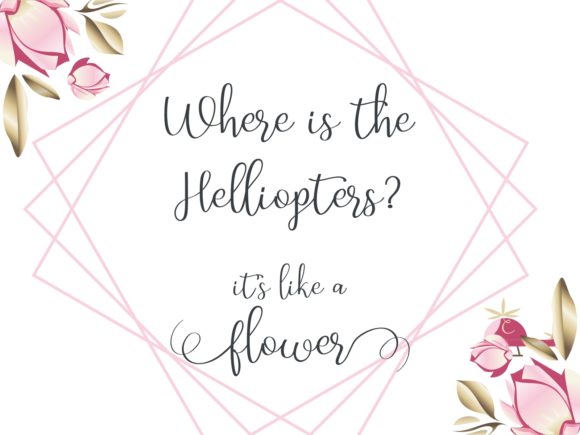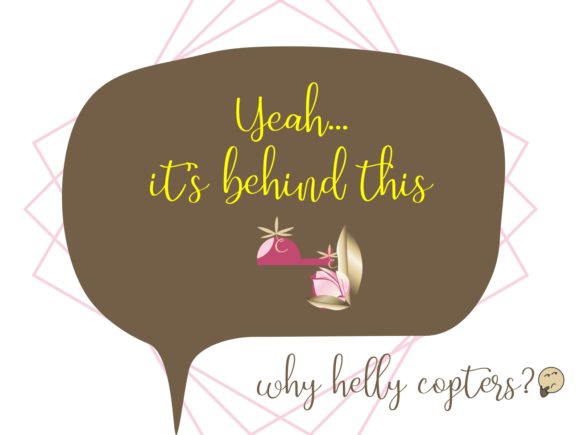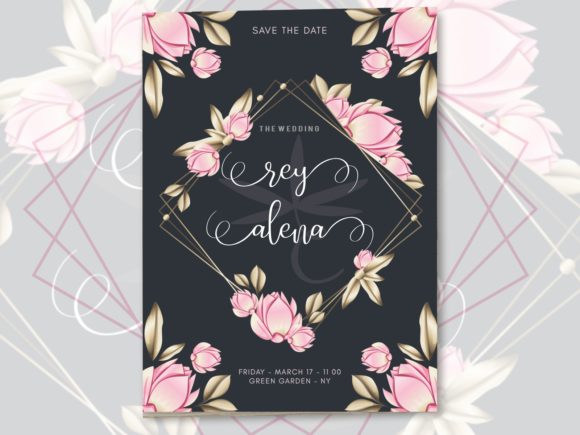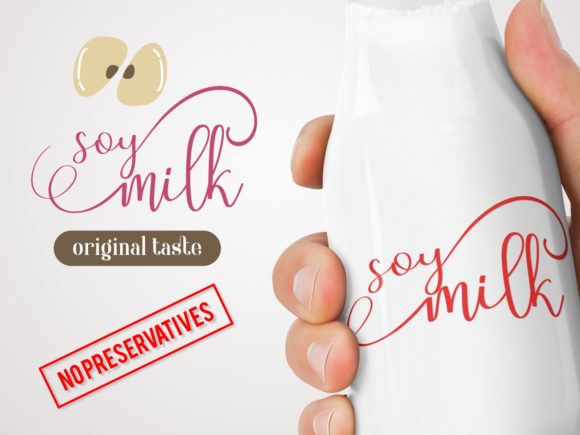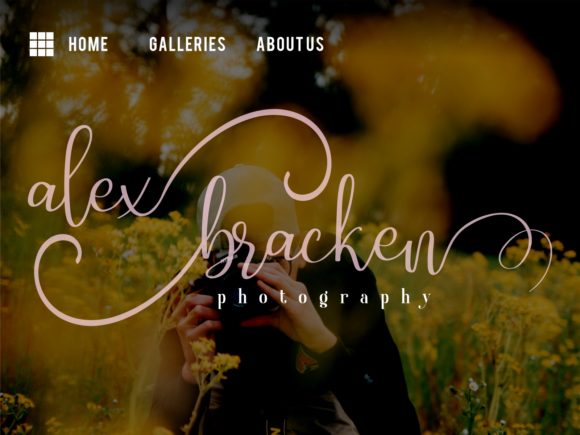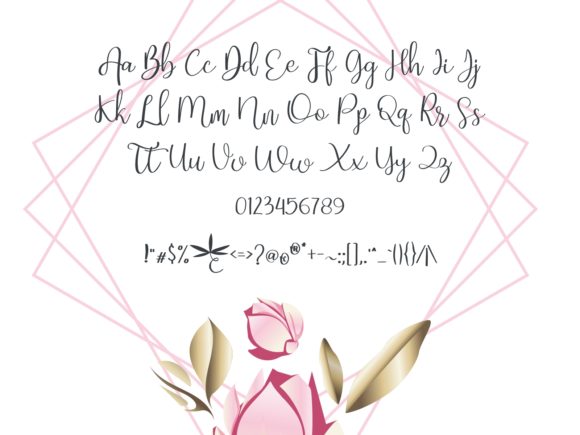
Introduction to Helly Copters Font
Have you ever been in the middle of a creative project, pouring your heart and soul into a design, and suddenly, the perfect font pops into your mind? That’s exactly what happened to me when I stumbled upon the Helly Copters Font. Its elegant, flowing handwriting style instantly caught my attention, and I knew I had to learn more about this beautiful design resource.
As a designer, I can attest to the importance of having access to high-quality fonts that elevate our work to the next level. The Helly Copters Font is a game-changer, offering a unique blend of classy calligraphic influences and contemporary freshness. With its PUA encoding, you can easily access all of the glyphs and swashes, making it a versatile and powerful tool for any creative project.
Key Features of Helly Copters Font
- High-quality vector design, ideal for creative projects requiring a unique touch.
- Designed to be highly scalable, suitable for use in a wide range of resolutions and sizes, from small icons to large signage.
- Features a distinctive, bold style that is sure to add a touch of personality to any design project.
- Perfect for use in graphic design, digital art, and other creative applications where a unique font is desired.
Honest Review: Helly Copters Font
I recently stumbled upon the Helly Copters Font while working on a creative project that required a unique and eye-catching design resource. Initially, I was drawn to its quirky and playful aesthetic, which I thought would be perfect for a fun and lighthearted project.
- ✨ Unique and creative design style that adds a touch of personality to any project
- ✨ High-quality font that is crisp and clear, making it ideal for various design applications
- ⚠️ Limited character set, which may not be suitable for projects that require a wide range of characters or languages
- ⚠️ Some users may find the font’s quirks and imperfections to be distracting or overwhelming, depending on the project’s tone and style
Overall, I would recommend the Helly Copters Font for designers looking for a unique and creative solution for their projects. While it may not be suitable for every design application, it is a great option for those looking to add some personality and flair to their work.
The Helly Copters Font is ideal for use in graphic design, logo creation, and branding. Its high quality and transparent background make it perfect for creating visually appealing graphics that stand out from the crowd.